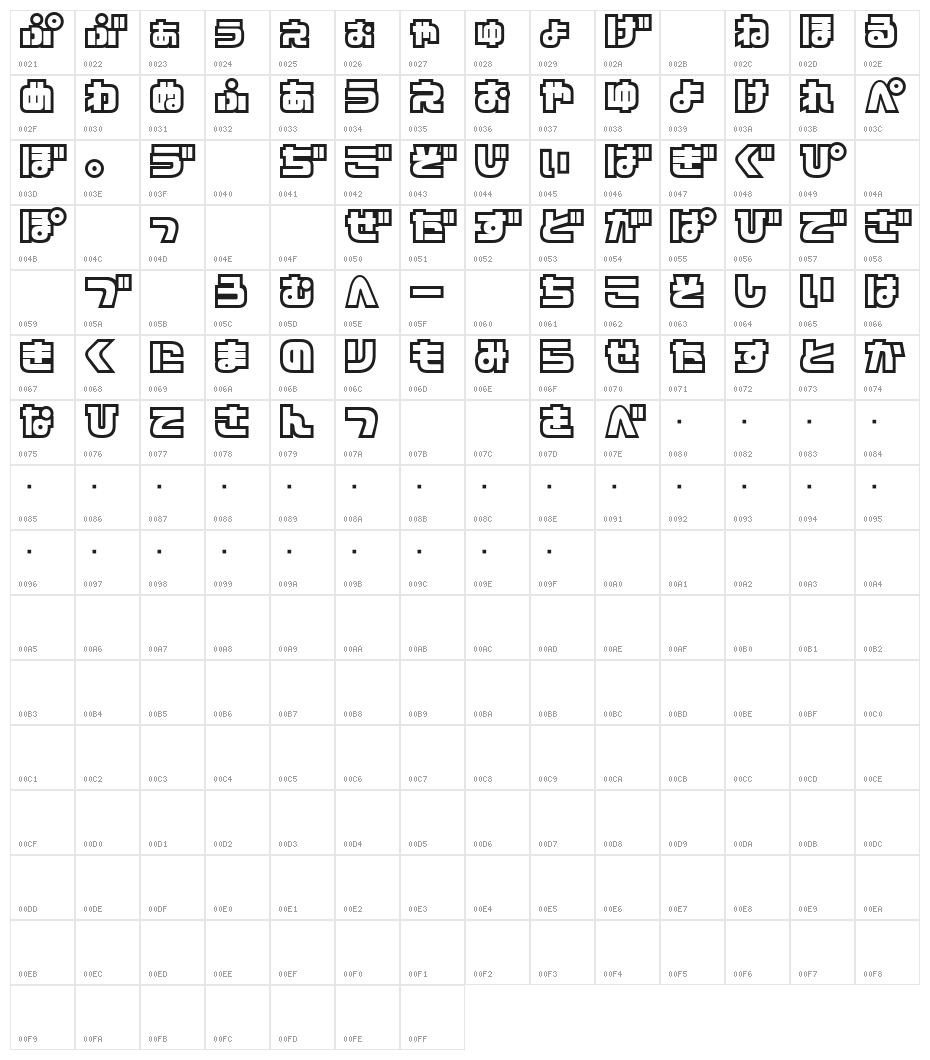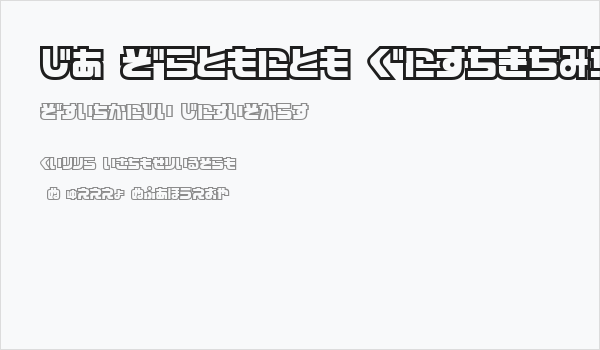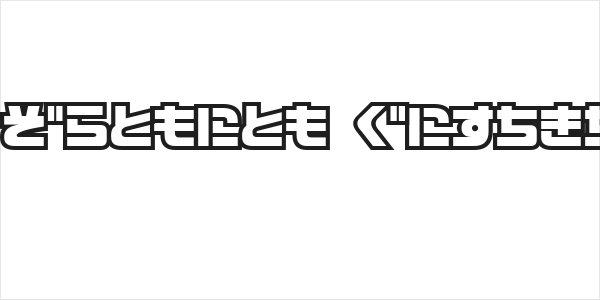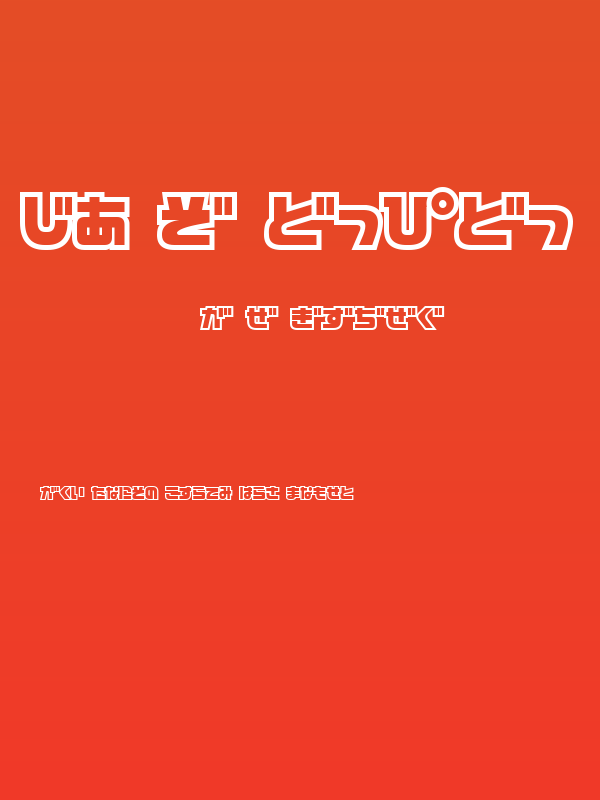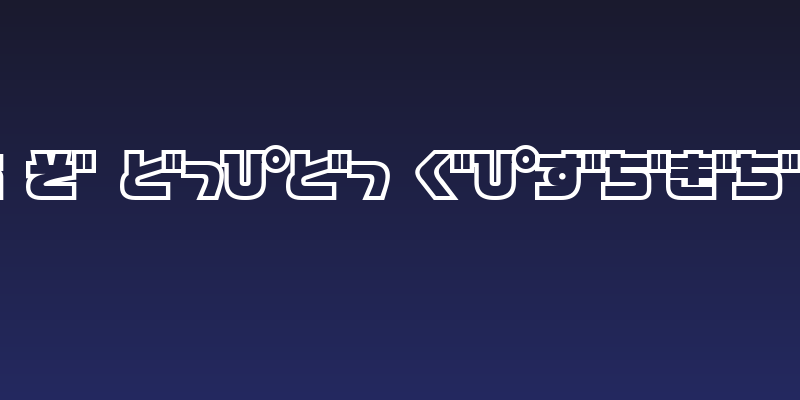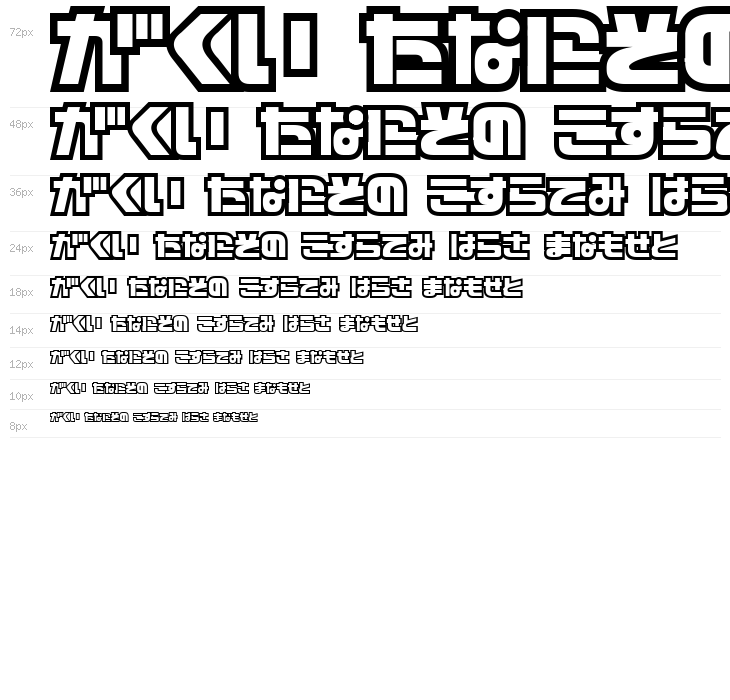
D3 Cosmism Hiragana Font
D3 Cosmism Hiragana Description
This font features bold, geometric shapes with a strong, modern aesthetic. The characters are outlined, giving them a distinct and eye-catching appearance. The style is reminiscent of futuristic or sci-fi themes, with a playful yet structured form. The strokes are thick and uniform, contributing to a sense of stability and boldness. This font is particularly suitable for designs that require a strong visual impact, such as posters or headlines. The overall look is clean and contemporary, making it versatile for various creative projects.
| Use Case | Headlines, Posters, Branding |
| Proposed Projects | Ideal for sci-fi themed posters, modern branding, and eye-catching headlines. |